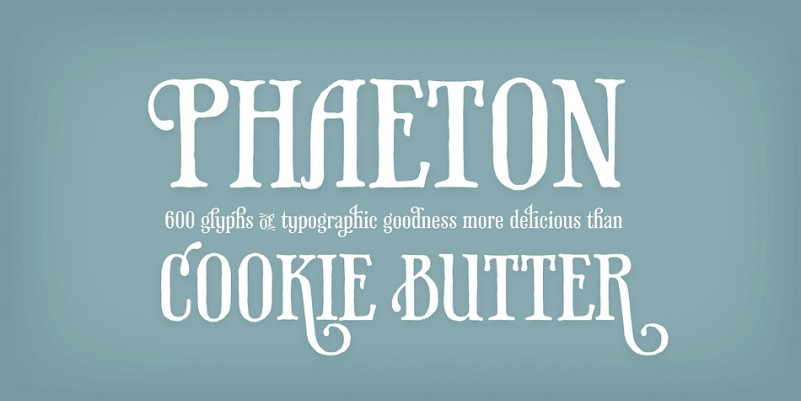
Phaeton Serif Font is a western and display serif font designed by Randy Jones and Kevin Cornell.
is a hand drawn victorian beauty that is both old world and old west. Children’s book illustrator Kevin Cornell collaborated with Randy Jones to create over 600 glyphs with context sensitive swash alternates, catchwords, nut fractions as well as delightful ornaments and vignettes.
A stylistic chameleon, Phaeton is right at home on wedding invitations, food packaging and book covers.